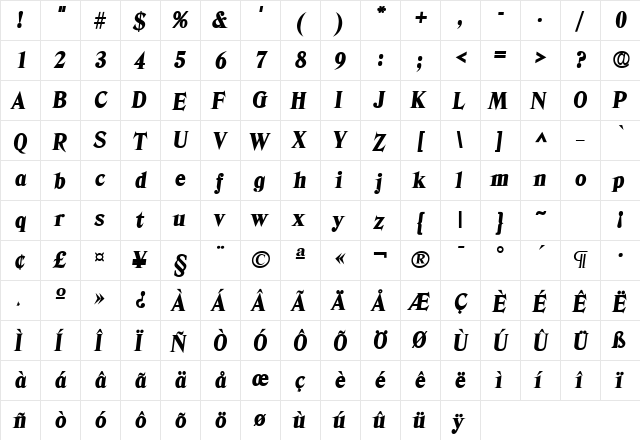
Blue Ridge Heavy SF Bold Italic Font Preview
Design Context for Blue Ridge Heavy SF Typeface
Blue Ridge Heavy SF offers clean, dependable letterforms without strong stylistic allegiance, making it a practical choice for designers who need flexibility. The dynamic lean of this cut emphasises speed and emphasis in any layout. The heavy weight commands attention and anchors typographic hierarchies.
Pro Tip: Try Blue Ridge Heavy SF for annotation and caption copy alongside an upright companion — the contrast in angle creates a dynamic but ordered typographic system.